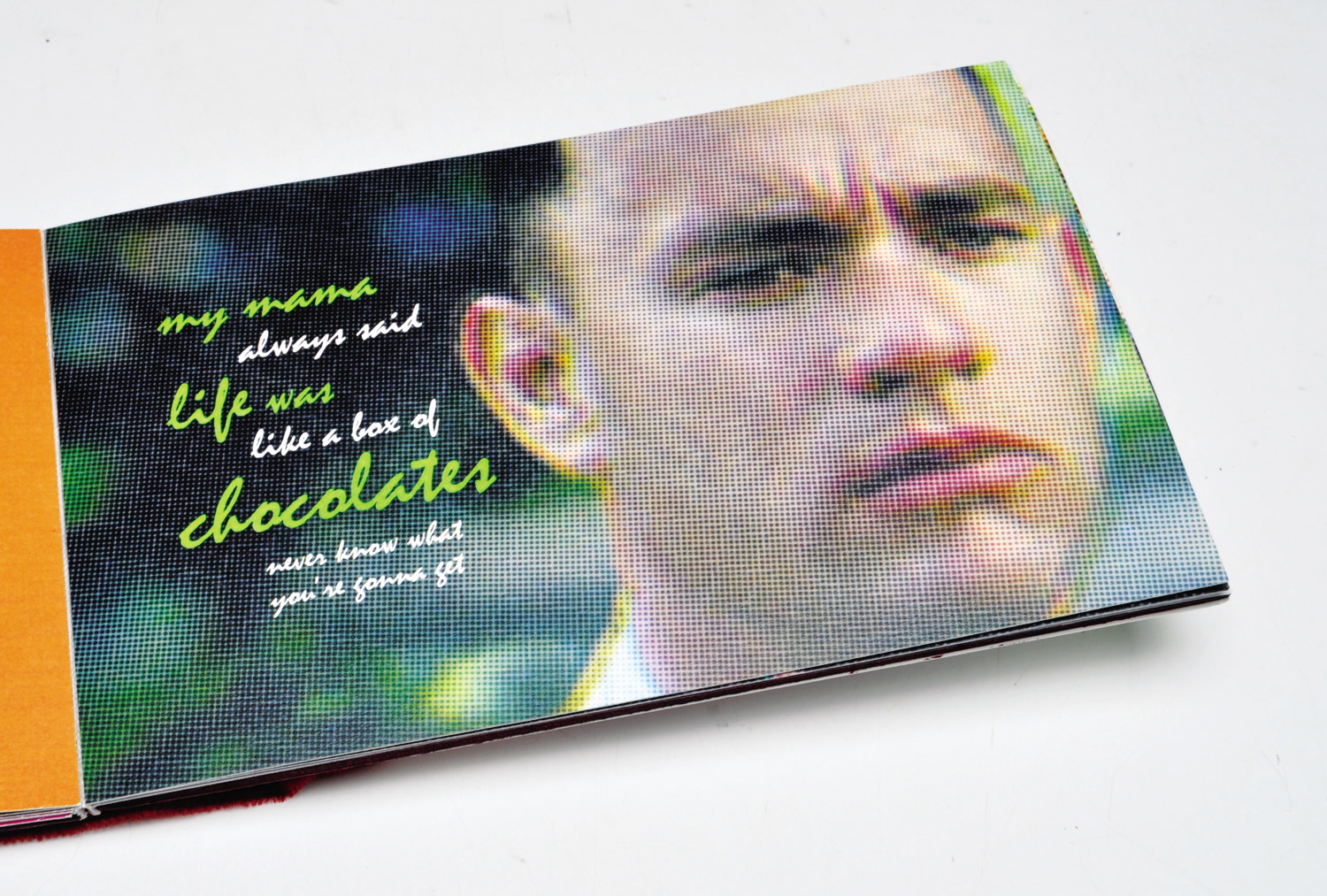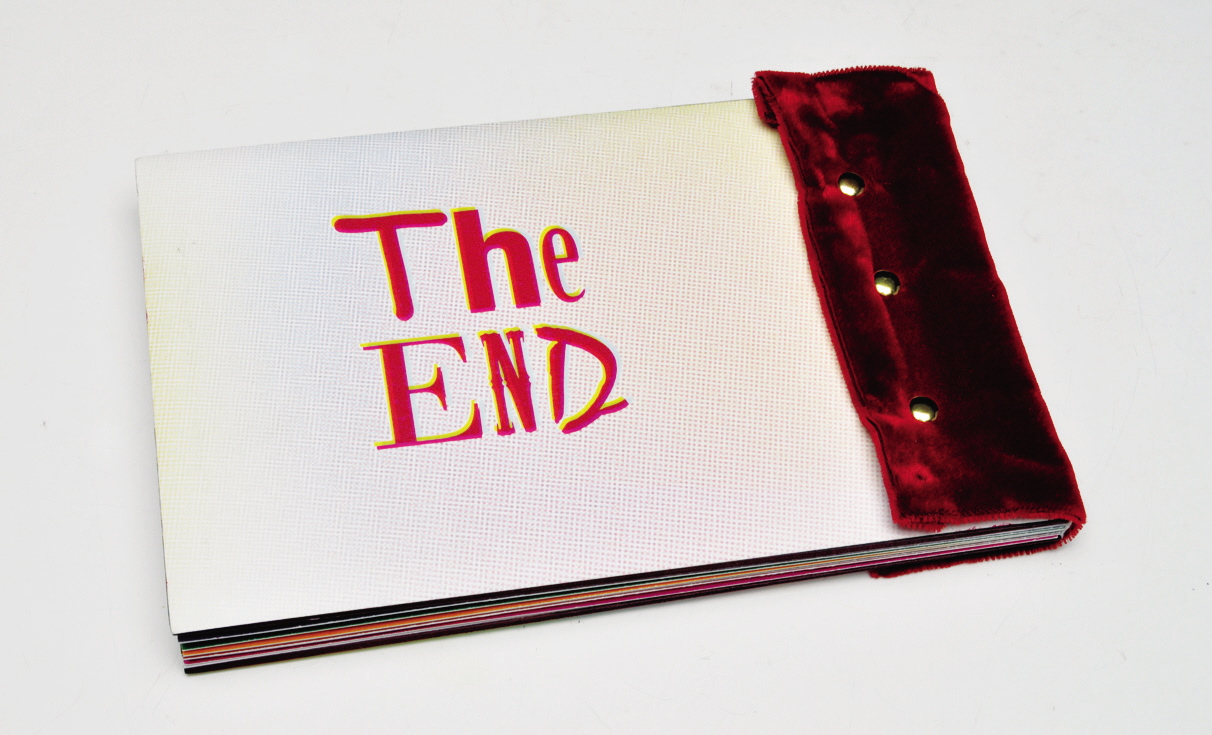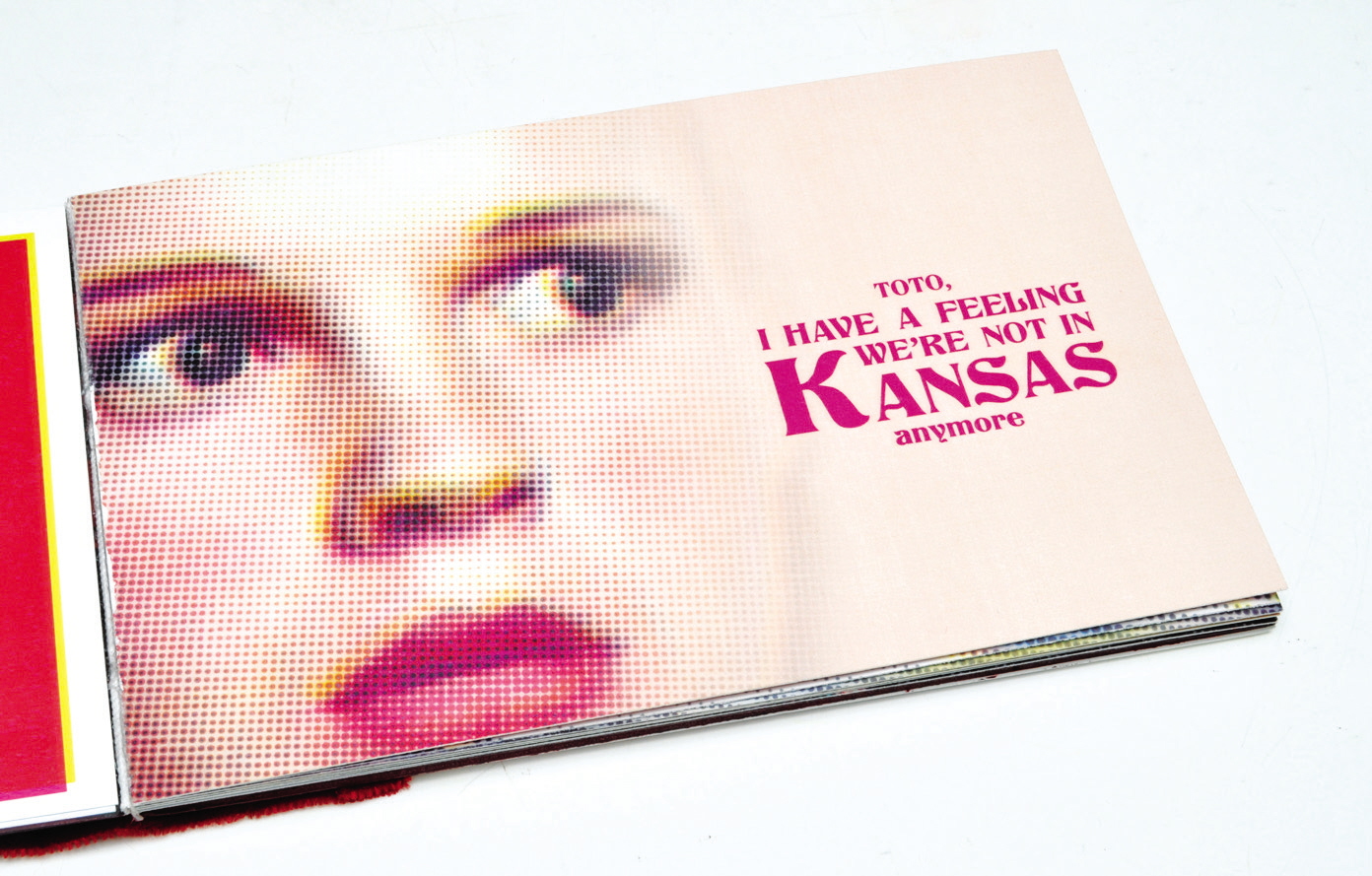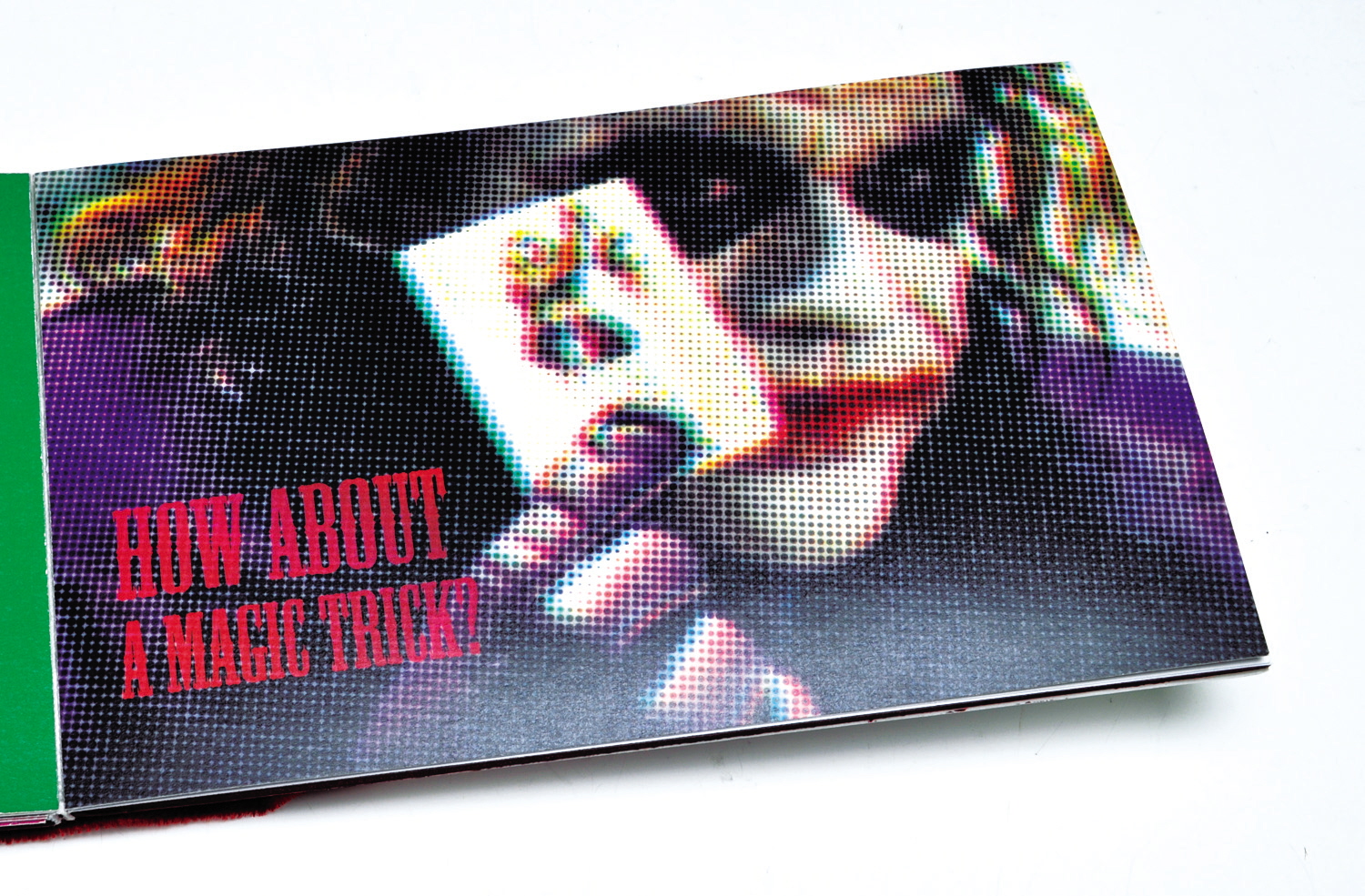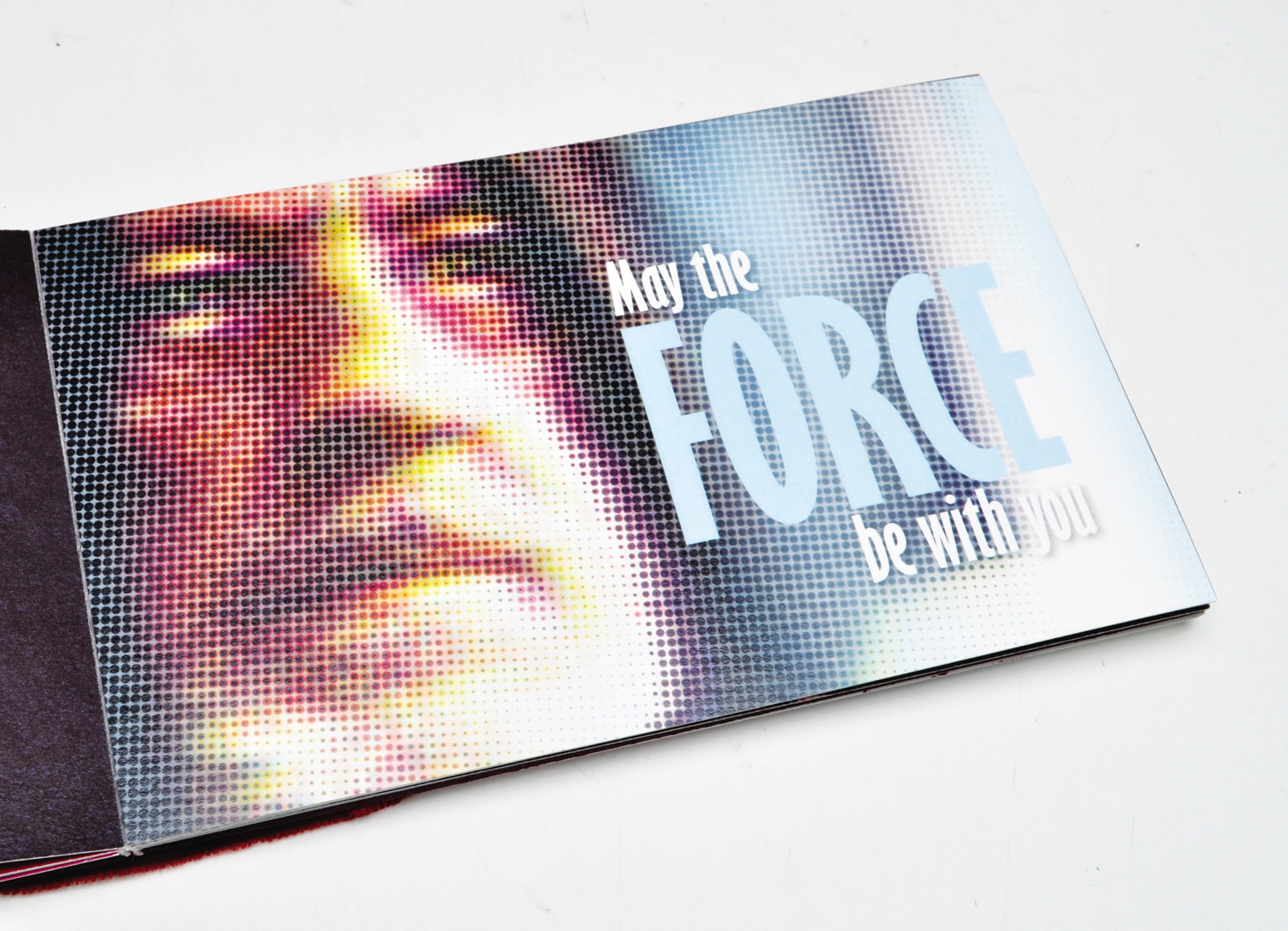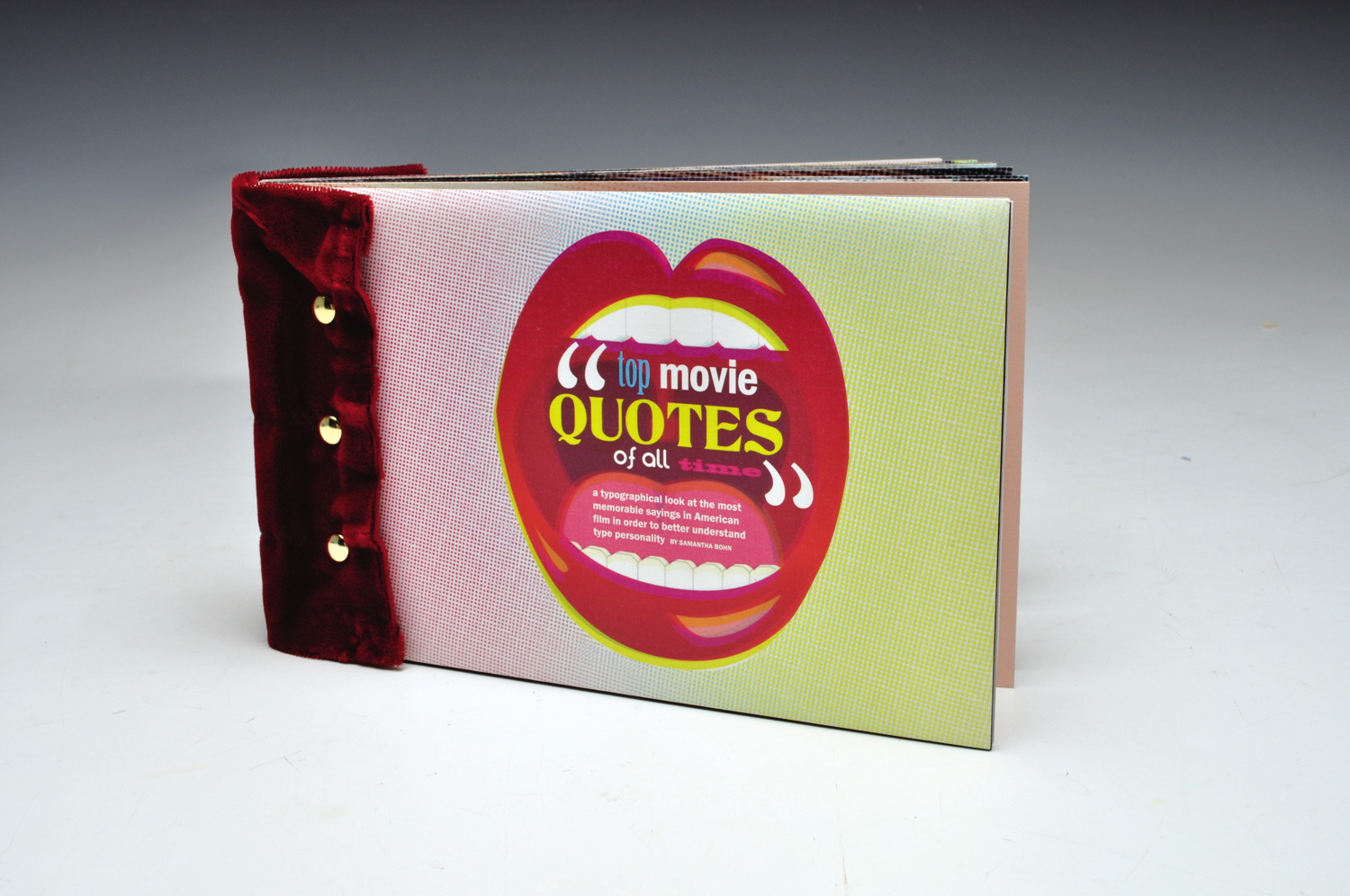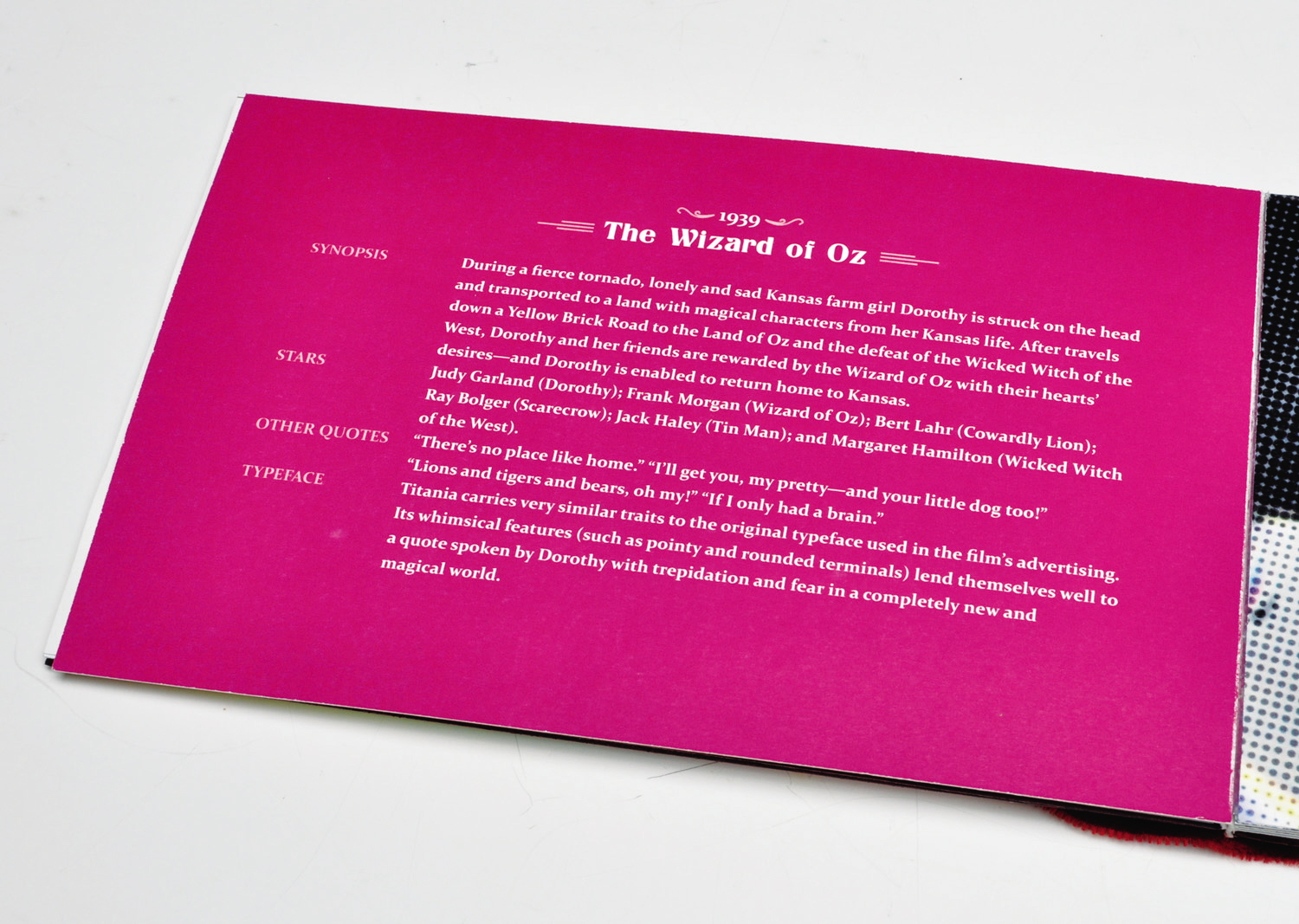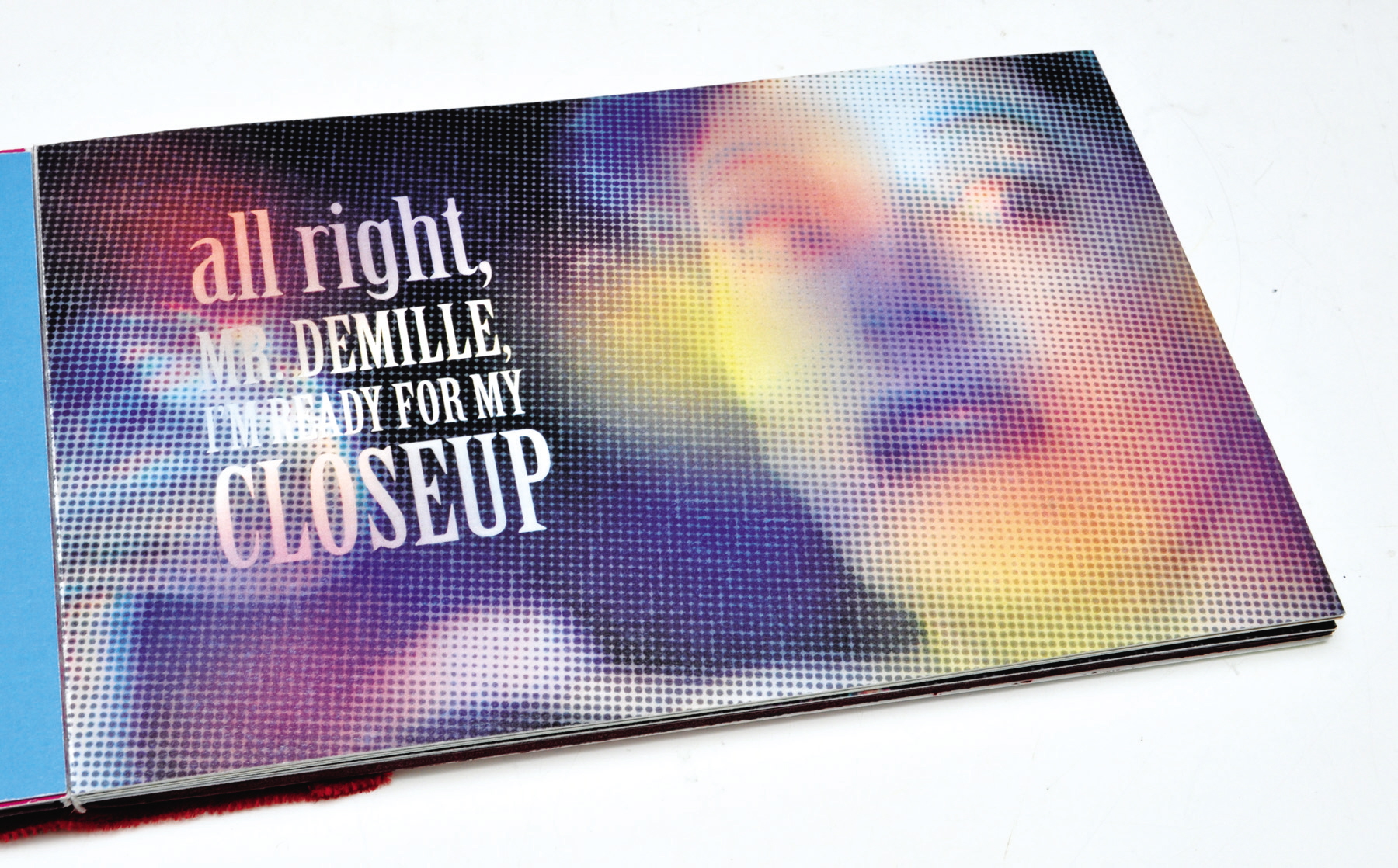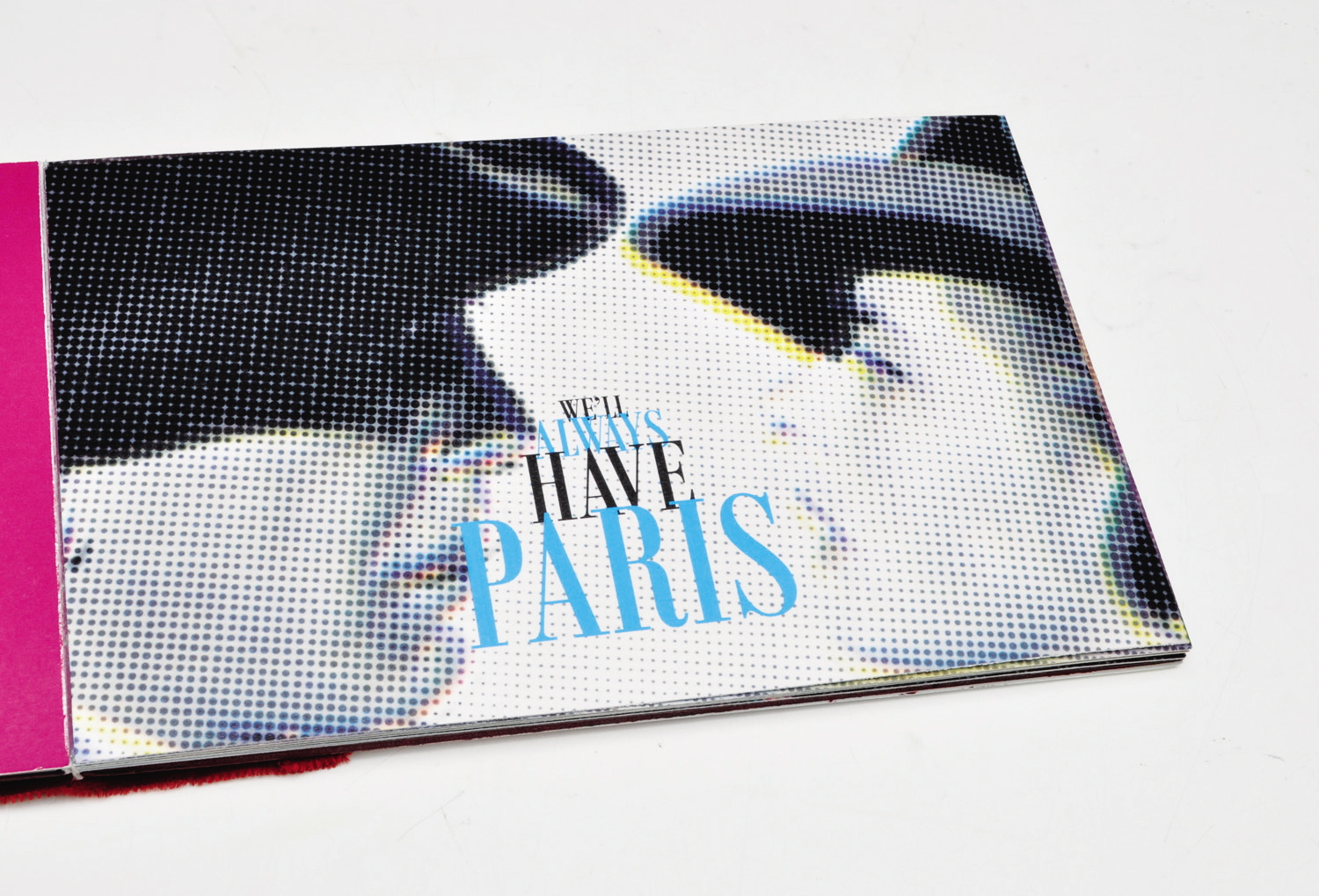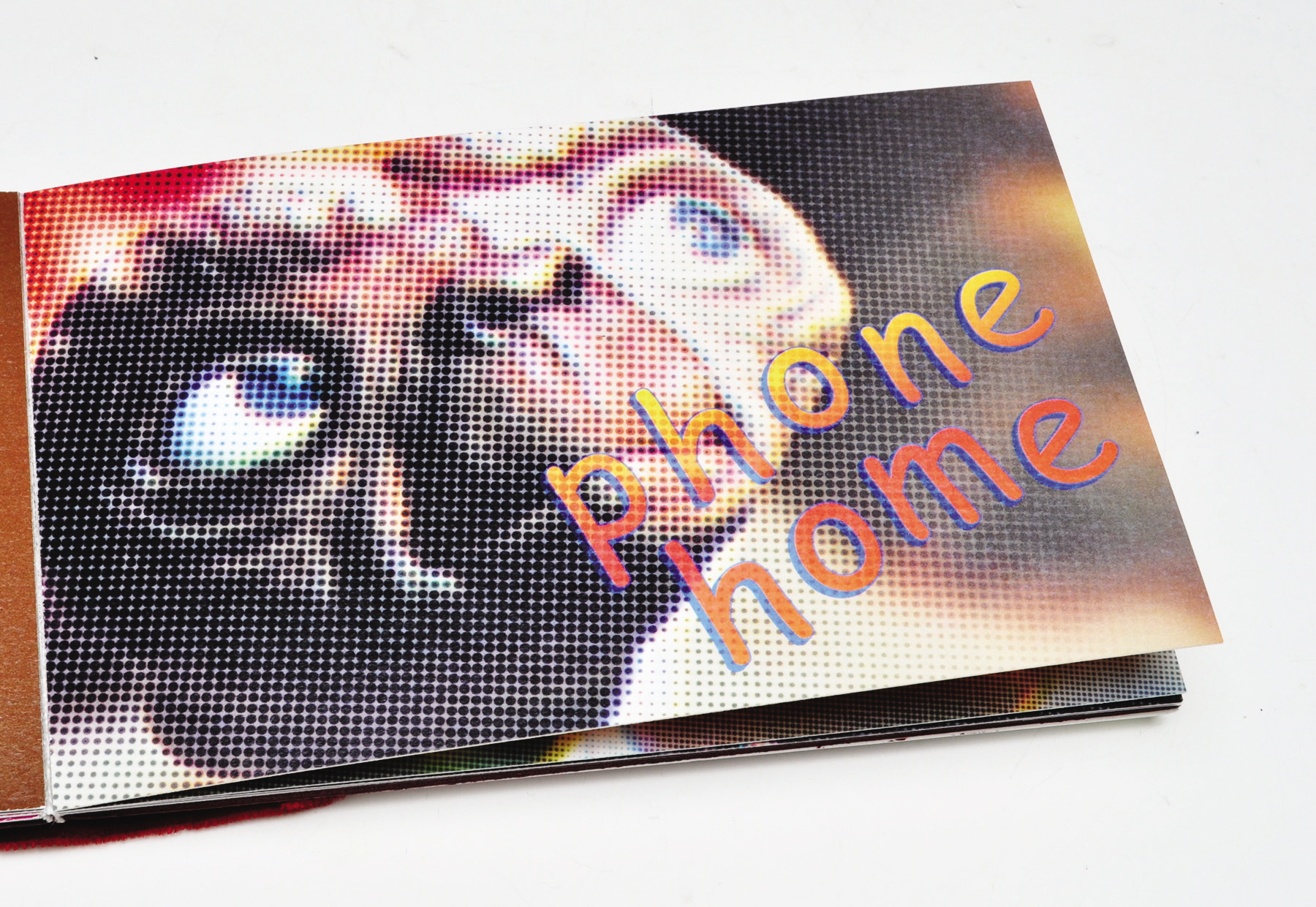
Typeface personality
This technicolor-inspired book includes a top quote from each decade starting in the 1930s using a typeface that coincides with the character’s personality. It should serve as a guide for discussing the need for designers to better select type that enhances their project. A second goal was to create a dual-purpose book. Non-designers will enjoy film facts on the back of each quote, and designers will enjoy the typeface exploration and descriptions on the back of each quote as well.
Cover of book uses velvet embellishment and binding to evoke emotions of a movie theater
Each quote contains facts/explanation on back
Movie quotes - This technicolor-inspired book includes a top quote from each decade starting in the 1930s using a typeface that coincides with the character’s personality. It should serve as a guide for discussing the need for designers to better select type that enhances their project. A second goal was to create a dual-purpose book. Non-designers will enjoy film facts on the back of each quote, and designers will enjoy the typeface exploration and descriptions on the back of each quote as well.
On this spread, Comic Sans was used to illustrate a point about selecting appropriate typefaces. Much of the controversy centers around the fact that Comic Sans has been misused by amateurs in serious documents such as tests, "do not enter" signs, and so on. This misuse of an informal, comic-inspired font has led to its demise among professional designers. Here, Comic Sans is appropriate because it implies a child speaker, largely due to its round terminals.